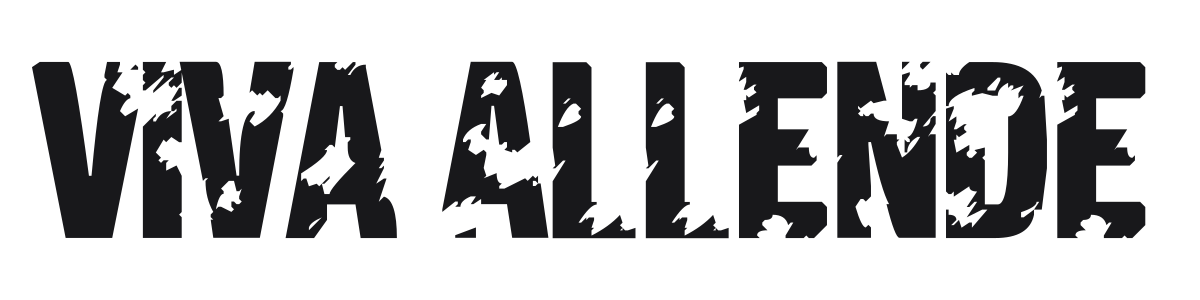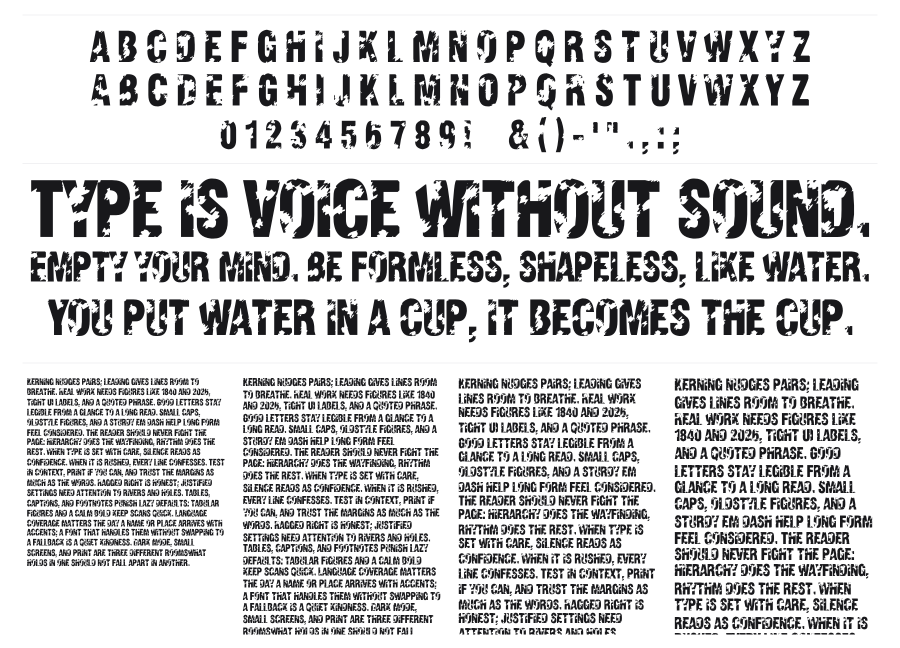
Viva Allende
Viva Allende is a heavy distressed display font built on a wide, blocky grotesque base that has been thoroughly ravaged by ink erosion, splatter, and degradation. The texture is intense and uneven, evoking worn protest posters or revolutionary print materials. It carries a strong political and street-culture edge that makes it a natural fit for confrontational headline work.